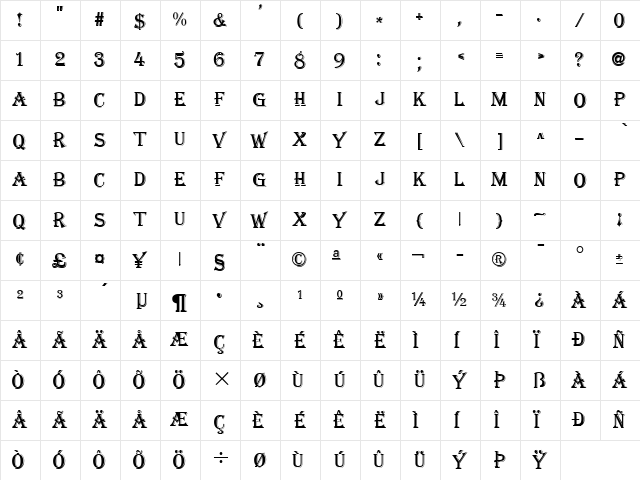
Tangiers Normal Free Font
Tangiers Normal
Tangiers Family
Complete Tangiers Normal glyph index. Displaying only characters natively supported by Tangiers Normal font.
Design Context for Tangiers
Tangiers is a composed and adaptable typeface that performs quietly and consistently across a wide range of design contexts.